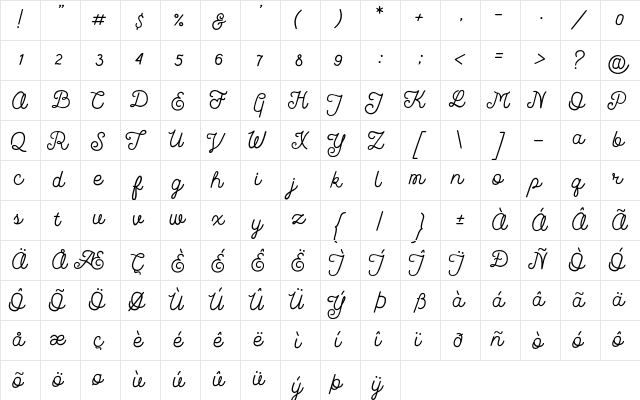
La Fa Salt Regular
| Foundry | Korzhenko Pavel |
| Designer | Korzhenko Pavel |
Design Context for La Fa Salt Typeface
La Fa Salt is a composed and adaptable typeface that performs quietly and consistently across a wide range of design contexts.